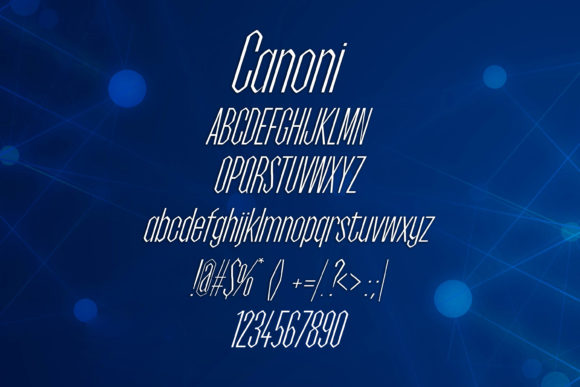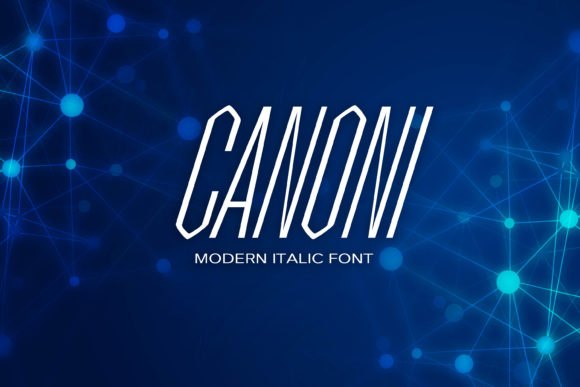
Introducing Canoni Font: The Perfect Blend of Tradition and Modernity
In the world of typography, fonts play a crucial role in conveying messages, expressing emotions, and creating visual identities. For designers and crafters, finding the right font can make all the difference in bringing their creative visions to life. If you’re on the hunt for a font that’s both modern and timeless, look no further than Canoni Font. In this article, we’ll dive into the world of Canoni, exploring its inspiration, features, and uses.
The Inspiration Behind Canoni Font
Canoni Font is a sans serif font that’s deeply rooted in traditional sign painting. However, it takes a bold leap into the modern era with its clean and minimalist design. The creators of Canoni drew inspiration from the classic techniques of sign painting, where letters were carefully crafted to be highly legible and visually appealing. By infusing this traditional approach with a modern twist, Canoni Font was born – a font that’s both nostalgic and cutting-edge.
Key Features of Canoni Font
So, what makes Canoni Font so special? Here are some of its key features:
• Super Clean and Minimal: Canoni Font boasts a sleek and uncluttered design, making it perfect for modern and contemporary designs.
• Sans Serif: The font’s sans serif design ensures that it’s highly legible, even at small sizes.
• Highly Versatile: Canoni Font can be used for a wide range of applications, from logos and headlines to business cards and t-shirts.
Uses of Canoni Font
Canoni Font’s versatility is one of its greatest strengths. Here are some of the many ways you can use this amazing font:
• Logos: Create a lasting impression with a custom logo that showcases your brand’s personality.
• Headlines: Grab attention with bold and eye-catching headlines that demand to be read.
• Business Cards: Elevate your professional image with business cards that feature clean and modern typography.
• T-Shirts and Merchandise: Add a touch of style to your apparel and merchandise with Canoni Font’s sleek design.
Why Designers and Crafters Love Canoni Font
Canoni Font has quickly become a favorite among designers and crafters, and for good reason. Here are some reasons why:
• Easy to Read: Canoni Font’s clear and concise design makes it easy to read, even for extended periods.
• Highly Customizable: The font’s simplicity allows for endless customization options, ensuring that you can tailor it to your specific needs.
• Timeless Appeal: Canoni Font’s classic design ensures that it will remain relevant for years to come, making it a valuable addition to your design library.
In conclusion, Canoni Font is a game-changer for designers and crafters looking for a modern and versatile font. Its unique blend of traditional sign painting and modern design makes it perfect for a wide range of applications. Whether you’re creating a logo, headline, or business card, Canoni Font is sure to impress. So why wait? Give Canoni Font a try today and experience the power of clean and modern typography for yourself!